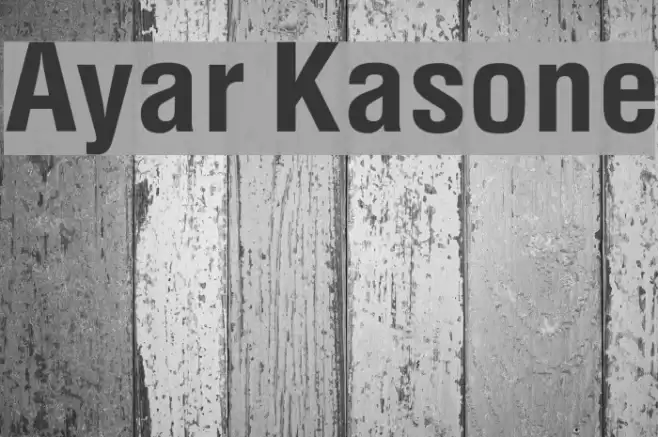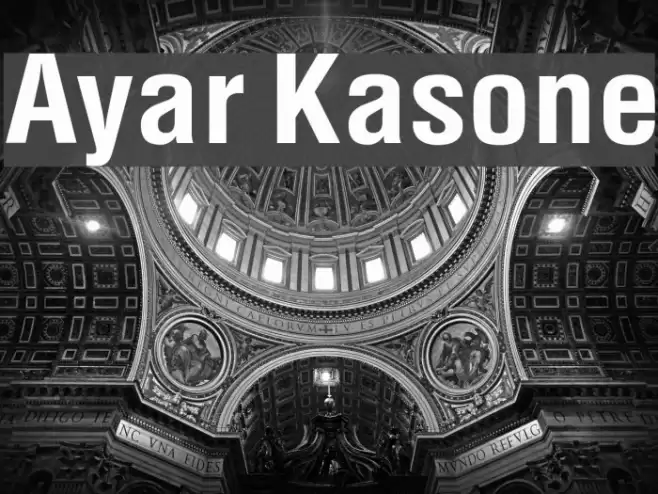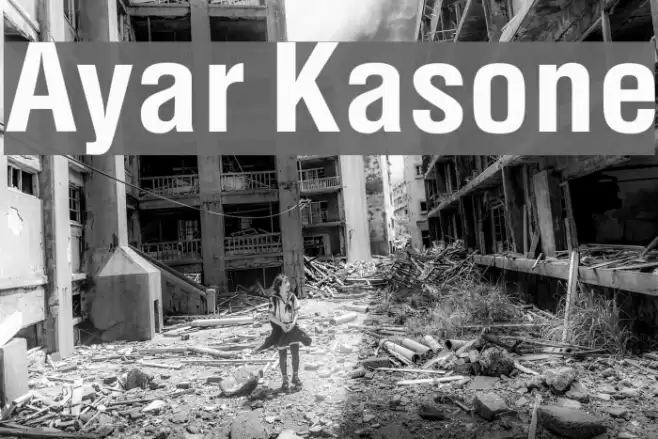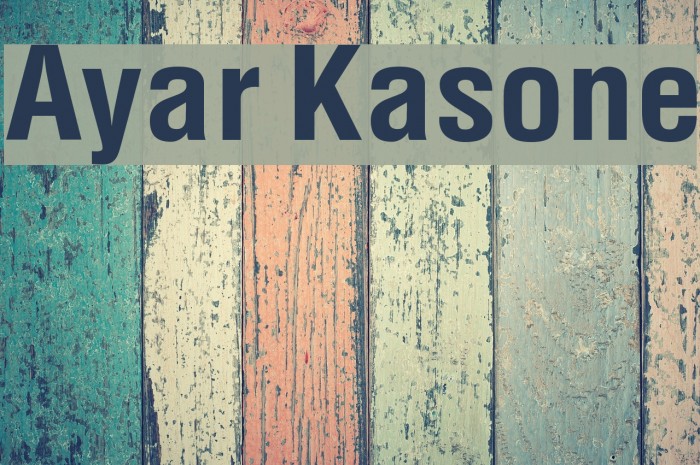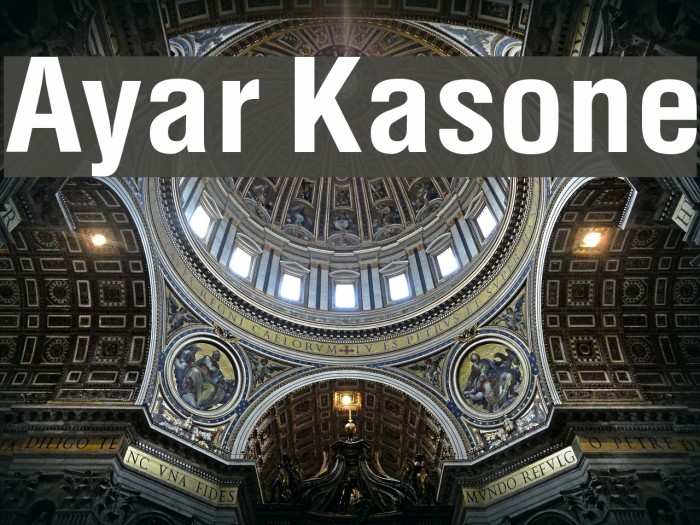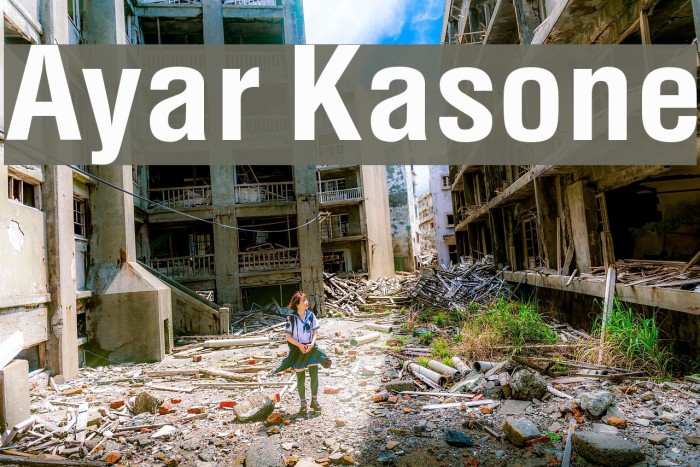
Ayar Kasone Font
Ayar Kasone Description
This font features a bold and robust design with clean, straight lines and uniform stroke widths. The uppercase and lowercase letters are well-proportioned, offering a modern and professional appearance. The numerals are clear and easily distinguishable, making them suitable for various applications. Special characters are designed with the same attention to detail, ensuring consistency across all glyphs. The overall look is versatile, making it ideal for both digital and print media.
A bold, modern font with clean lines and uniform strokes from Uncategorized fonts.
- Proposed Projects: Ideal for branding, advertising, headlines, and digital media projects.
- Use Case: Headlines, Logos, Advertising